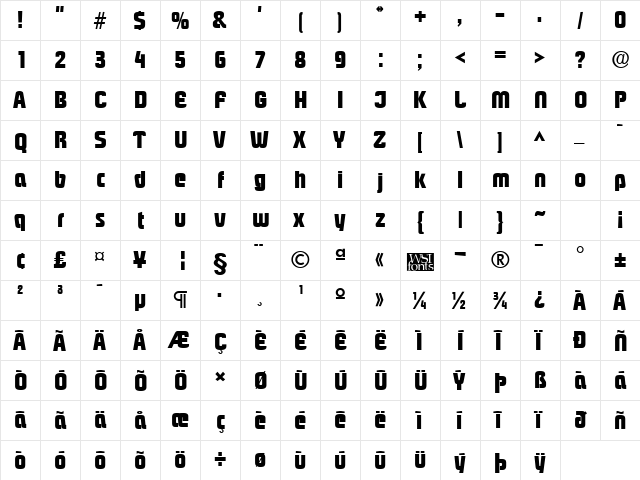
PloverBlack Regular
Design Context for PloverBlack Typeface
PloverBlack takes a measured approach to typography — its balanced proportions and neutral character make it a reliable workhorse for both digital and print work.